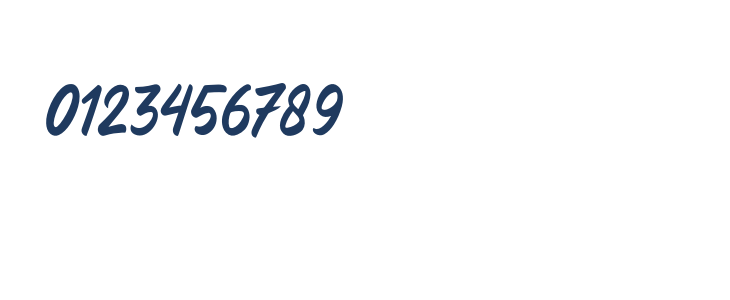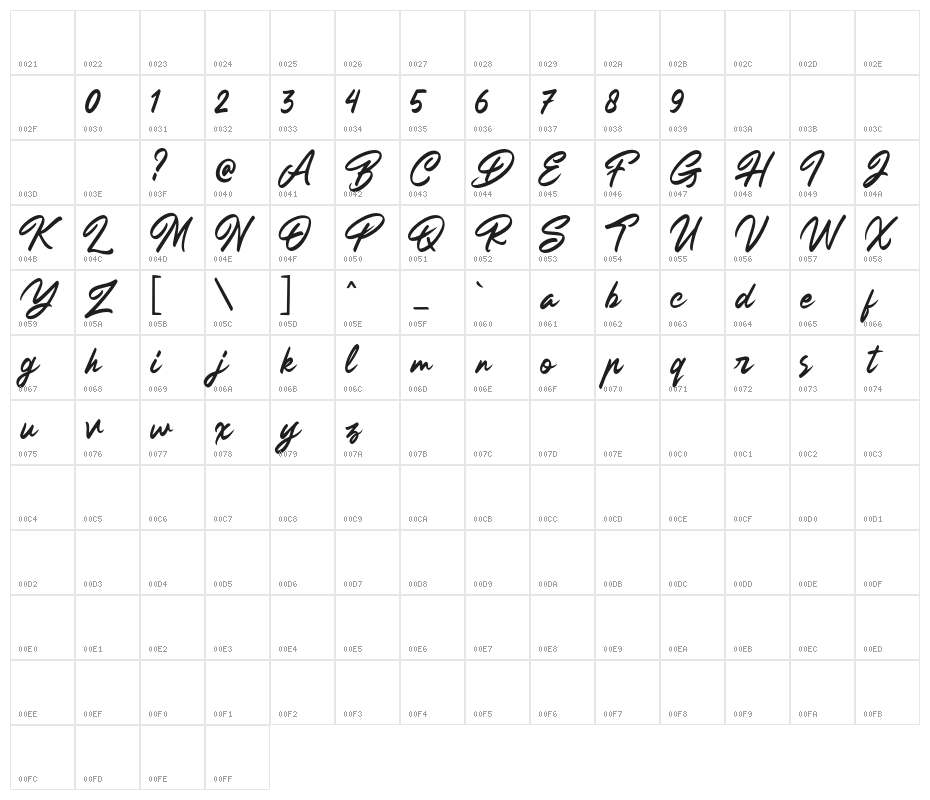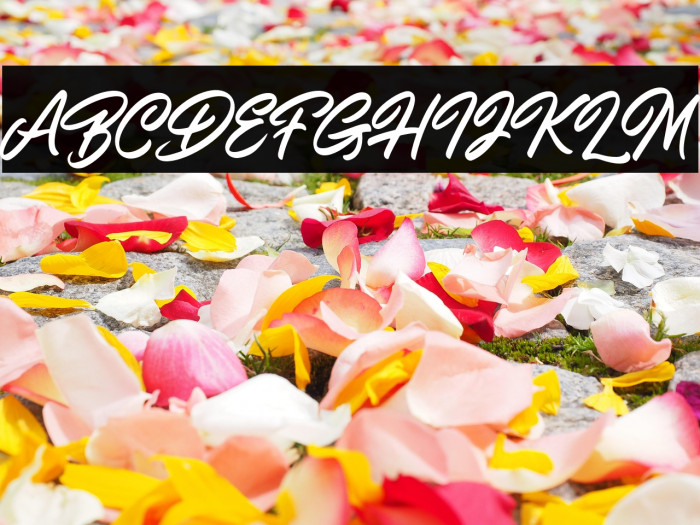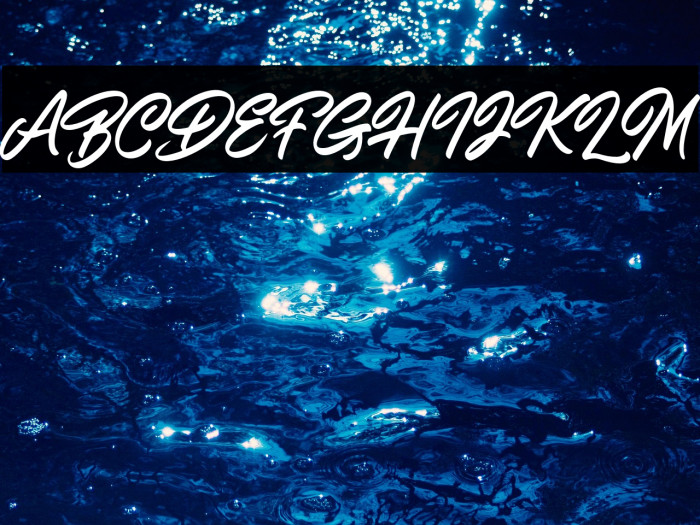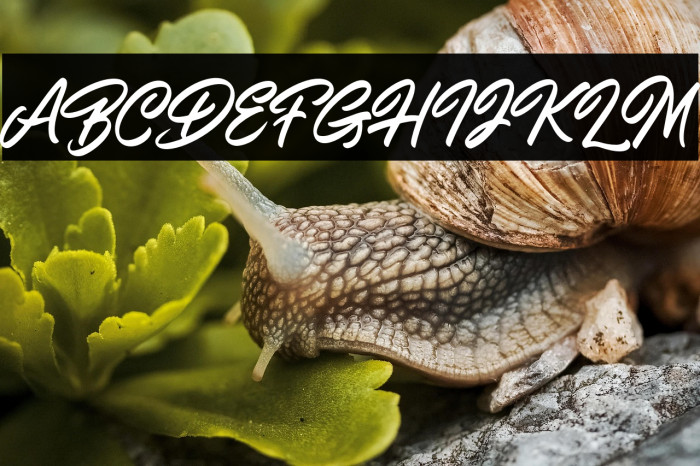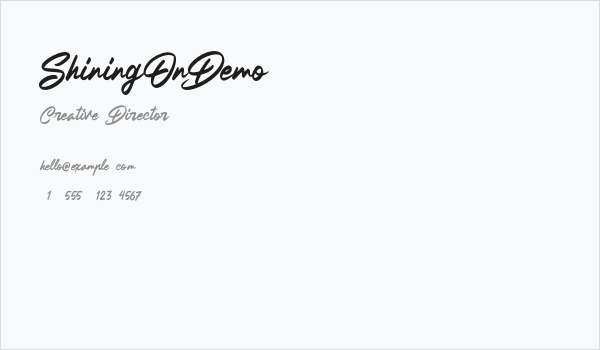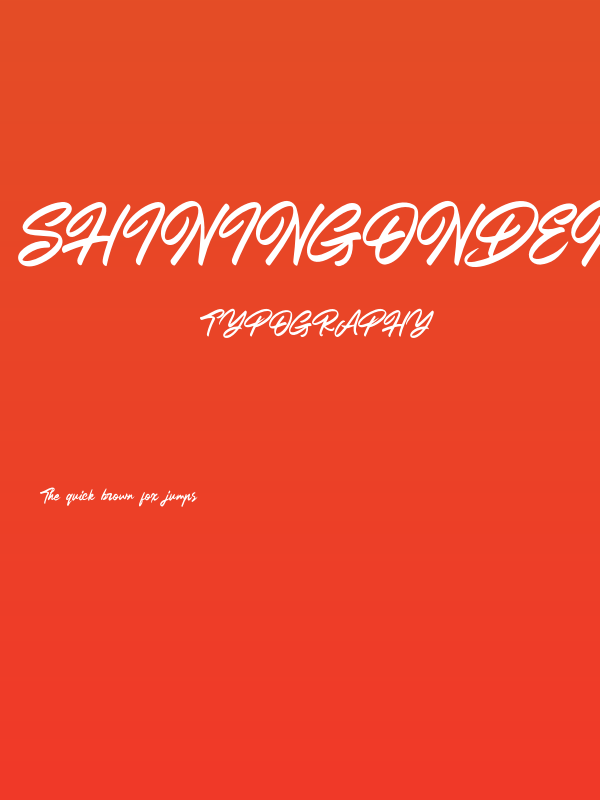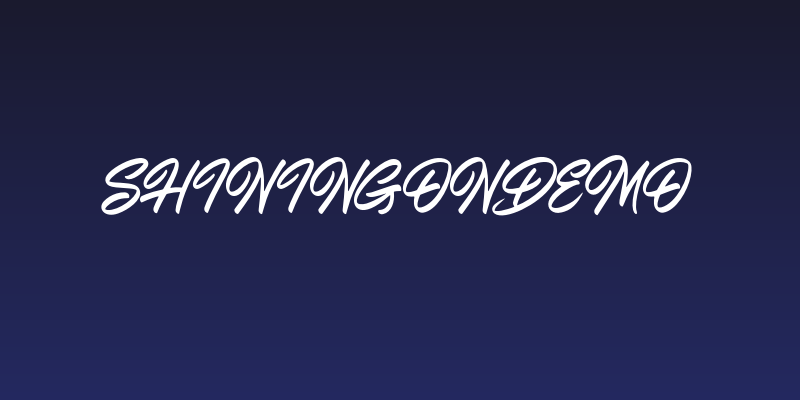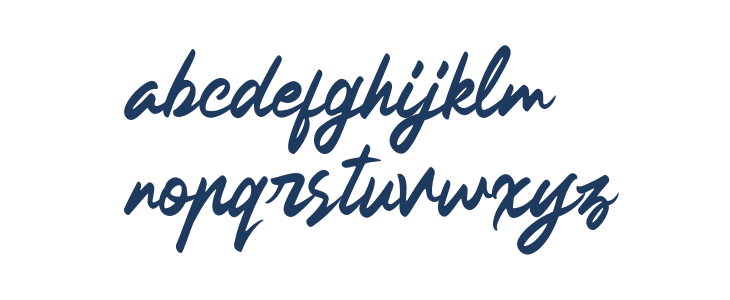
ShiningOnDemo Font
ShiningOnDemo Description
This font features a dynamic and fluid script style, characterized by its elegant and flowing cursive letters. The uppercase letters are bold and slightly slanted, giving a sense of movement and grace. The lowercase letters maintain a consistent style with smooth connections between each character, enhancing the overall fluidity of the text. The numbers are bold and maintain the same cursive style, ensuring consistency throughout. Special characters are designed to match the script's elegance, making them suitable for various decorative purposes.
| Overall Style | Elegant, Decorative |
| Proposed Projects | Ideal for wedding invitations, greeting cards, branding, and logo design where a touch of elegance and personal style is desired. |